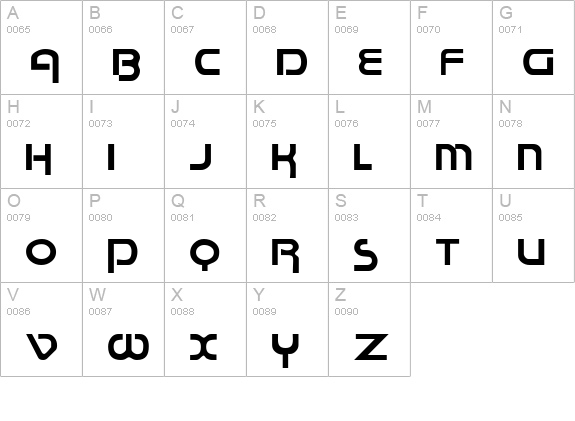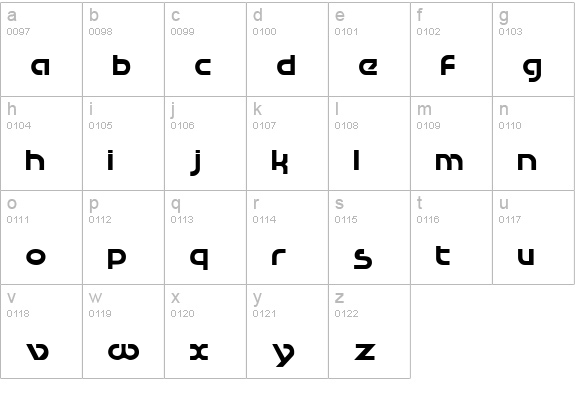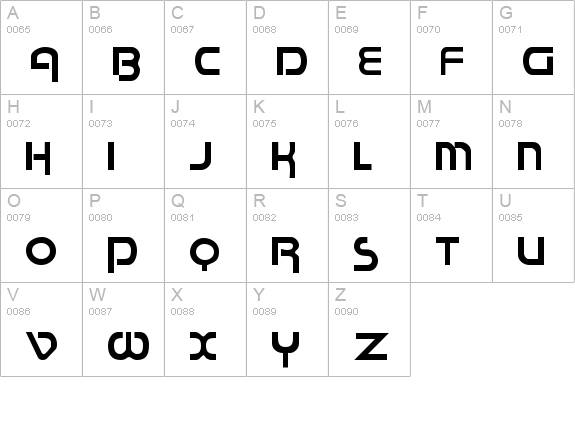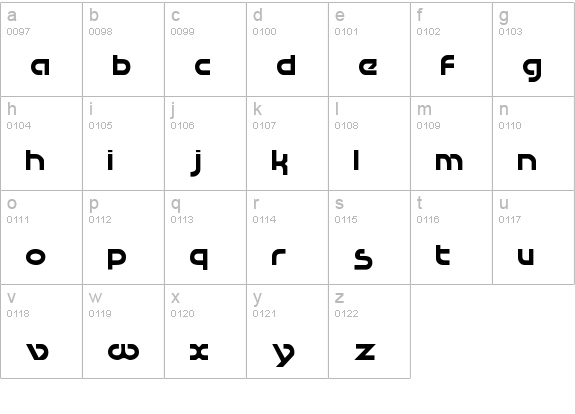
Pocono Font Details
Pocono font is a versatile and elegant typeface that exudes a sense of sophistication and modernity. With its clean lines and balanced proportions, Pocono is perfect for a wide range of design projects, from branding to editorial design. The stylish curves and unique letterforms of Pocono make it stand out among other fonts, adding a touch of creativity and flair to any project. Best of all, Pocono font is completely free to download at FontsMarket.com, making it accessible to designers of all levels. Whether you're working on a personal project or a client's design brief, Pocono font is a reliable choice that will elevate your work and help you achieve a polished and professional look. Download Pocono font today and unleash your creativity with this stunning typeface.